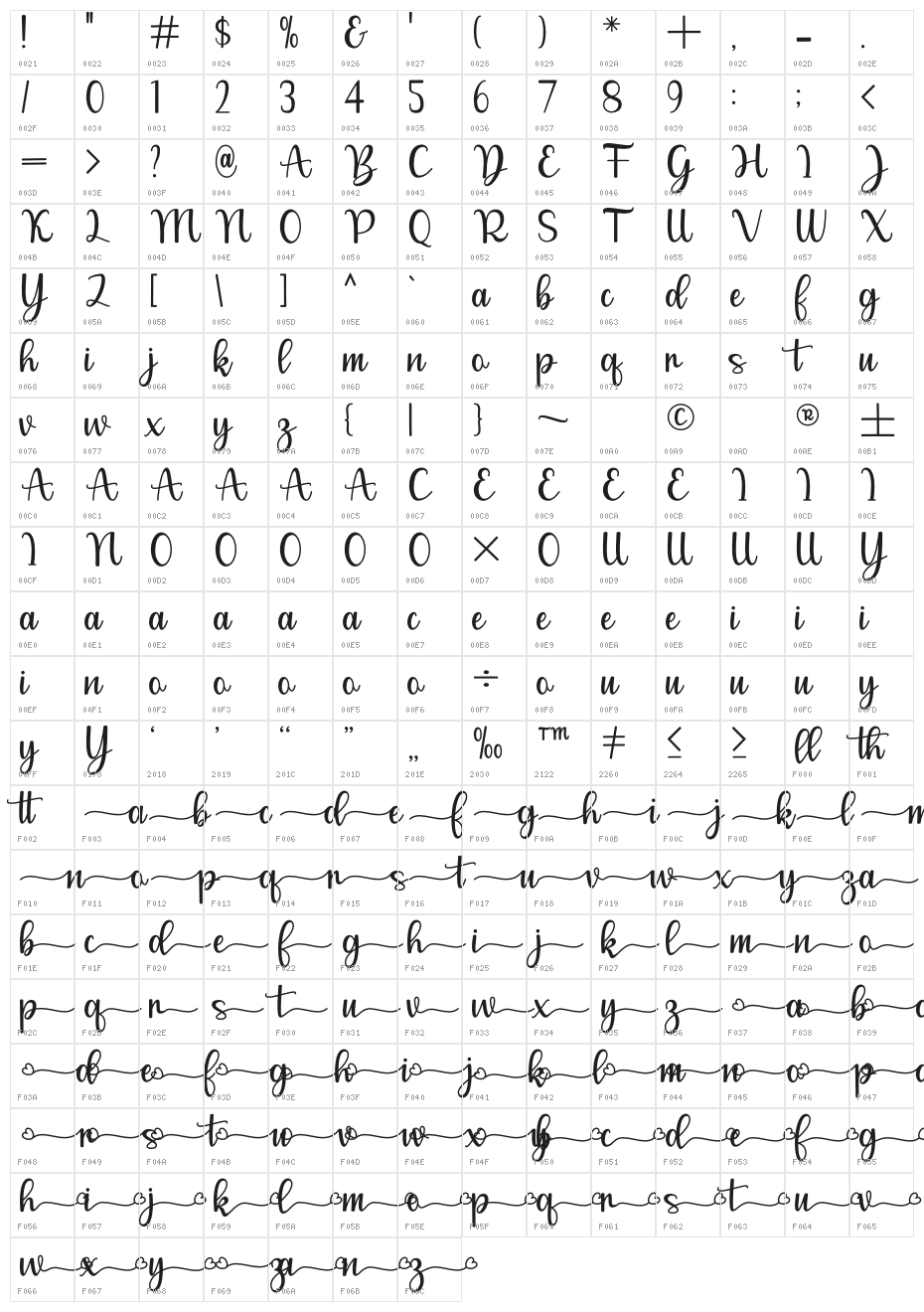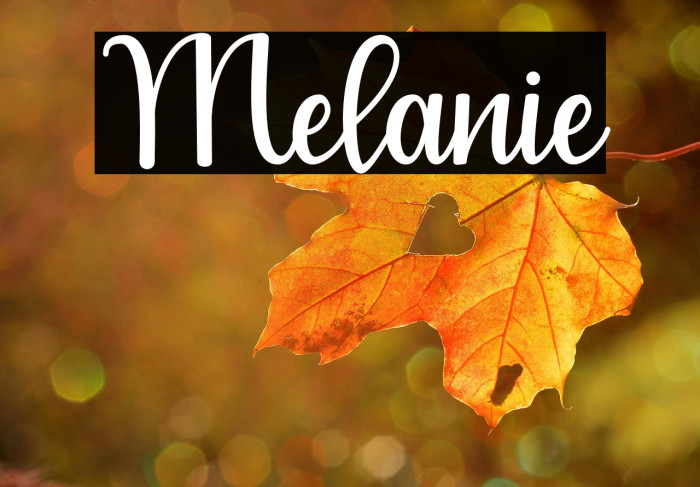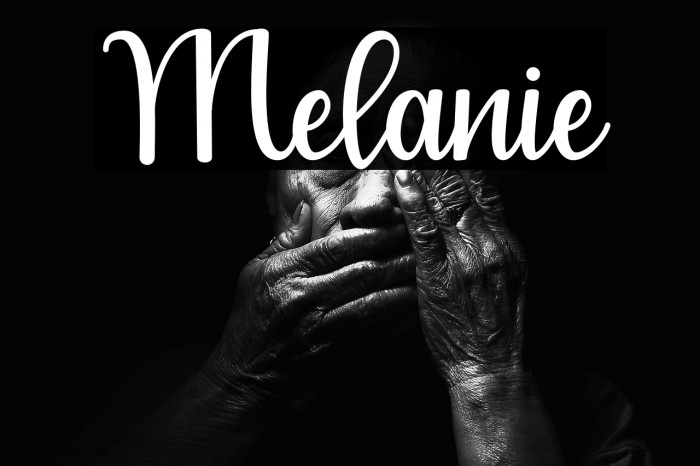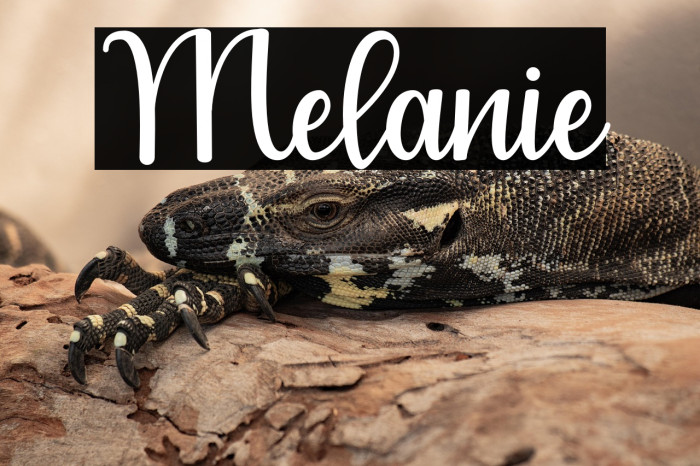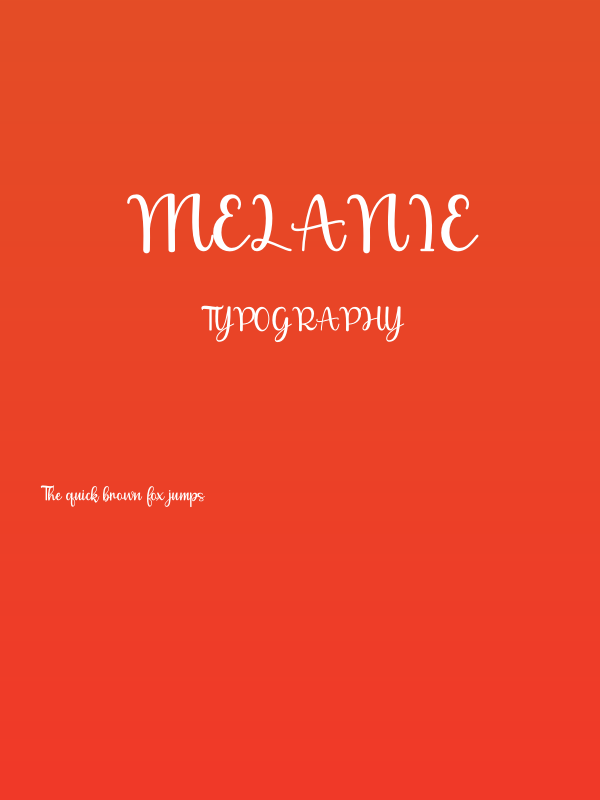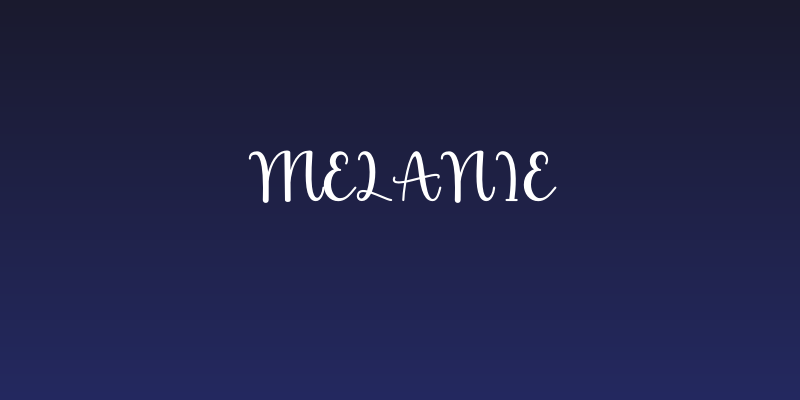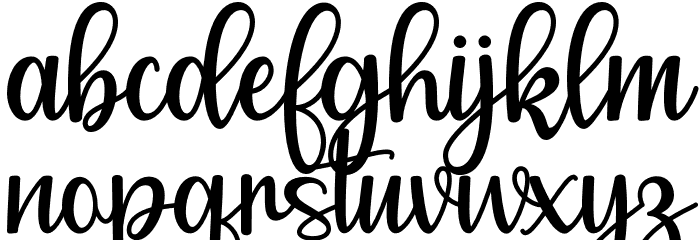
Melanie Font
Melanie Description
This font features a playful and elegant script style with a handwritten appearance. The uppercase letters are characterized by smooth, flowing lines and gentle curves, giving them a whimsical and artistic feel. The lowercase letters maintain a consistent style with a slightly bolder stroke, enhancing readability while retaining the font's overall charm. The numerals are clean and straightforward, complementing the script style without overpowering it. Special characters are thoughtfully designed to match the font's aesthetic, making it versatile for various creative applications. The font's unique blend of elegance and playfulness makes it suitable for projects that require a personal touch.
| Use Case | Logos, Invitations, Social Media |
| Proposed Projects | Ideal for wedding invitations, greeting cards, branding projects, and social media graphics. |